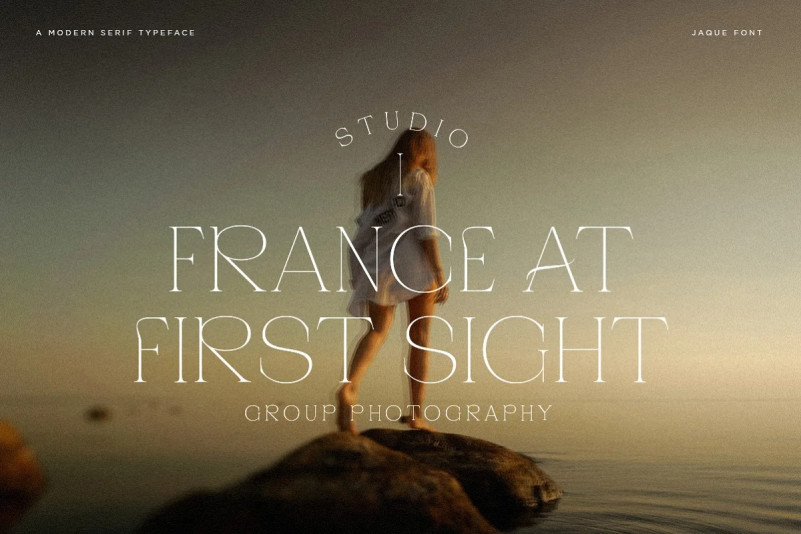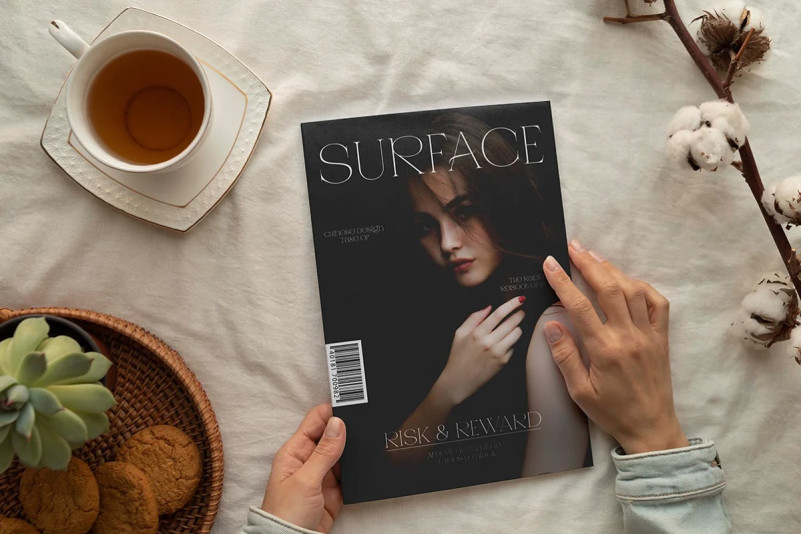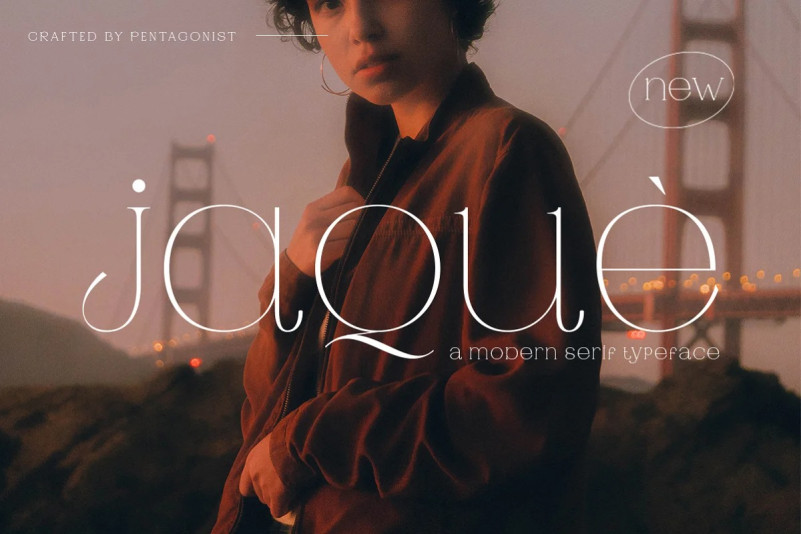
Jaque Font
Looking for a unique, stylish, and fun font for your next project? Introducing Jaque Serif Font, is a vintage serif character inspired by stylish and retro style.